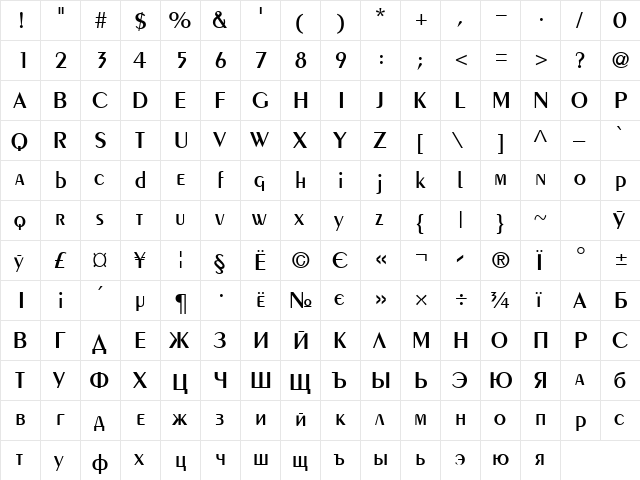
PentaDemi Normal
Design Context for PentaDemi Typeface
PentaDemi is a composed and adaptable typeface that performs quietly and consistently across a wide range of design contexts.